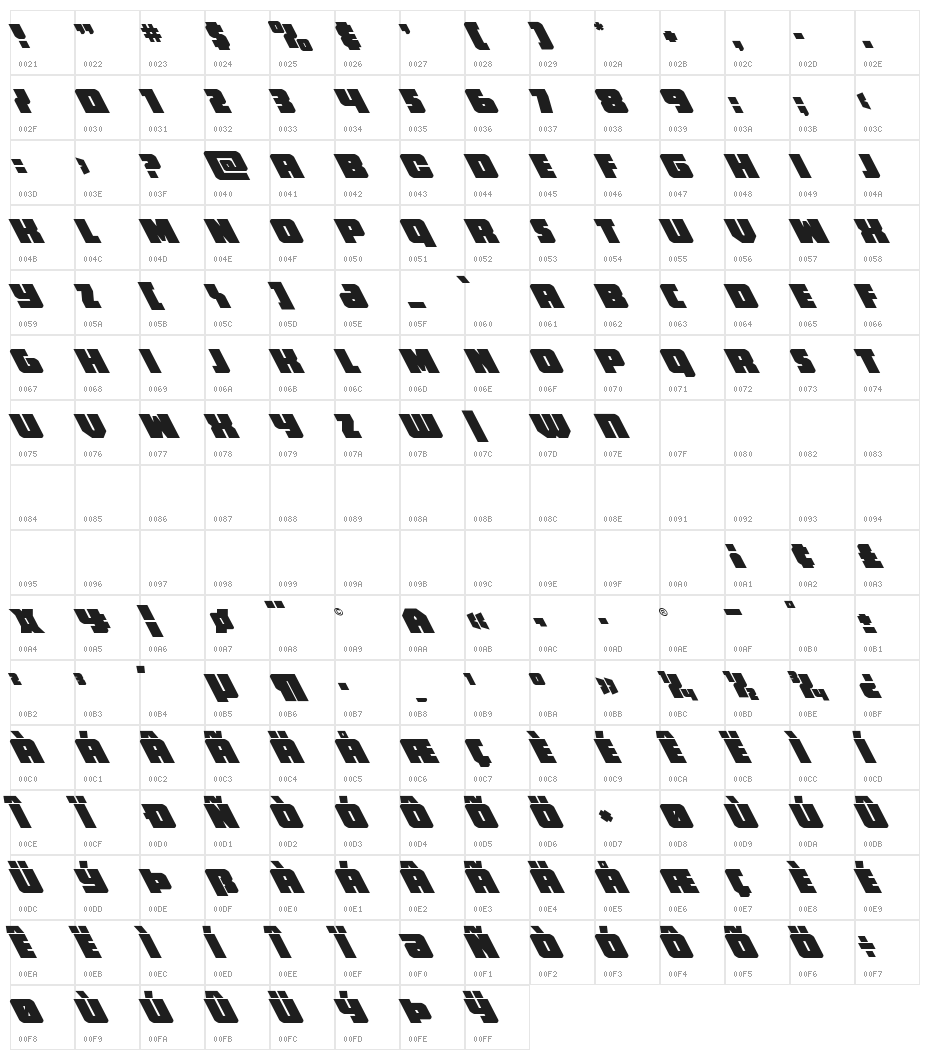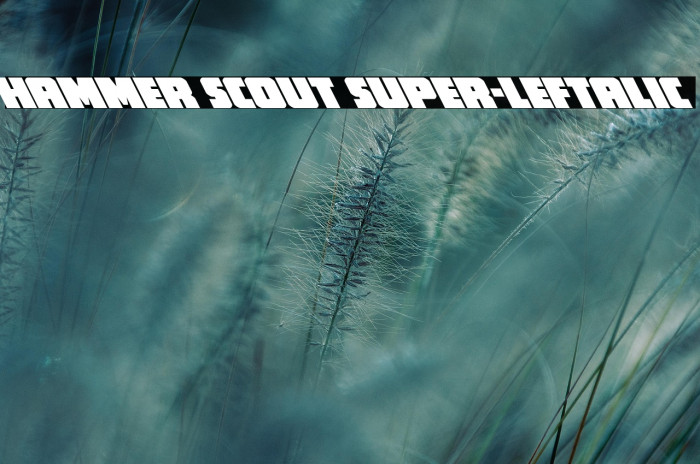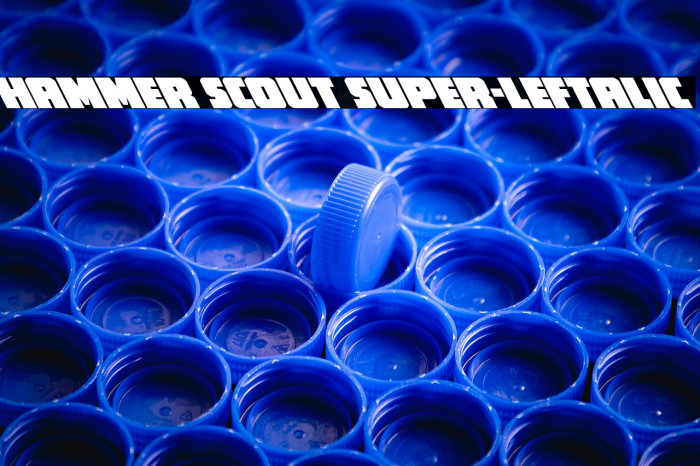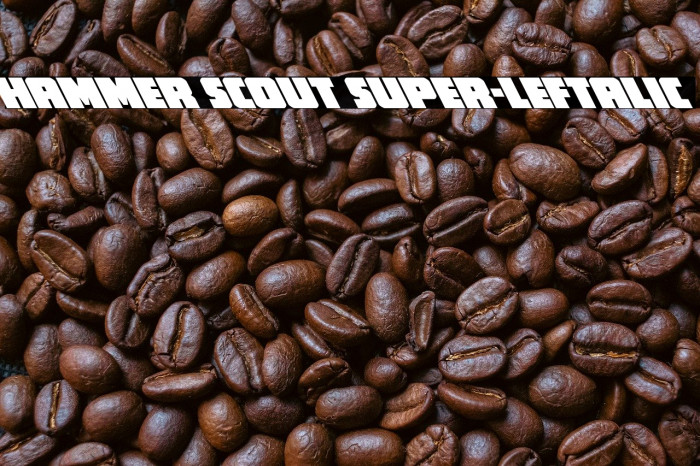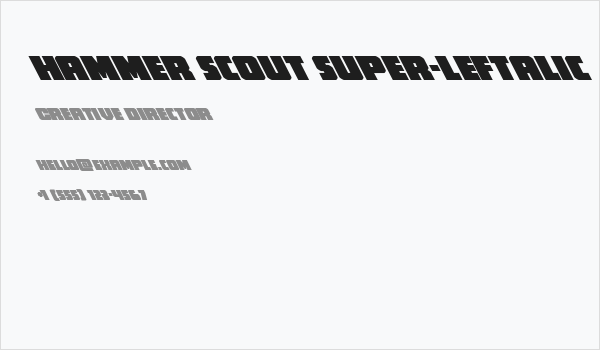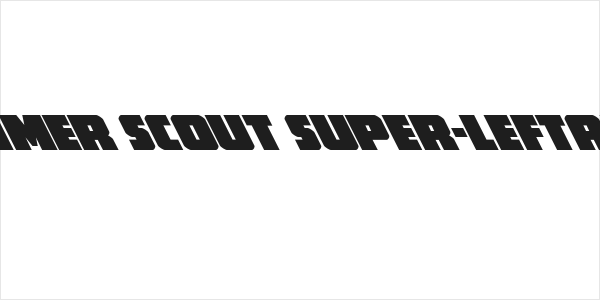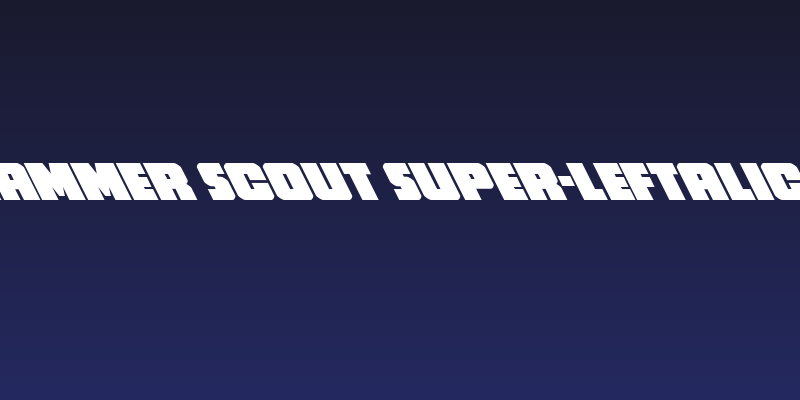
Hammer Scout Super-Leftalic Font
Hammer Scout Super-Leftalic Description
This font exhibits a bold and dynamic style with a strong slant to the left, giving it a sense of motion and energy. The characters are blocky and robust, with a uniform thickness that emphasizes their boldness. The angular cuts and sharp edges add a modern and aggressive feel, making it stand out in any design. The uppercase and lowercase letters maintain a consistent style, while the numbers and special characters are designed to match the overall aesthetic. This font is ideal for projects that require a strong visual impact.
| Proposed Projects | Ideal for sports branding, action-themed posters, and dynamic logo designs. |